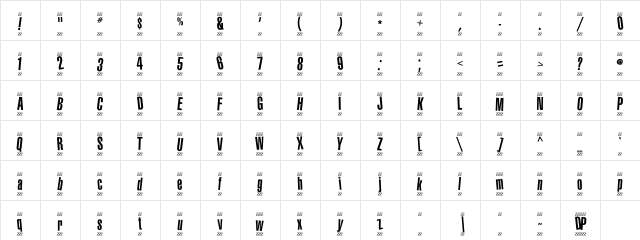
1980 Portable Bold Italic Free Font
1980 Portable Bold Italic
Design Context for 1980 Portable
1980 Portable is a composed and adaptable typeface that performs quietly and consistently across a wide range of design contexts. The slanted form adds forward momentum and visual energy. Its bold stroke weight gives it real presence on the page.
Pro Tip: Use 1980 Portable for emphasis, pull quotes, and subheadings where its slanted energy can add rhythm to the layout.